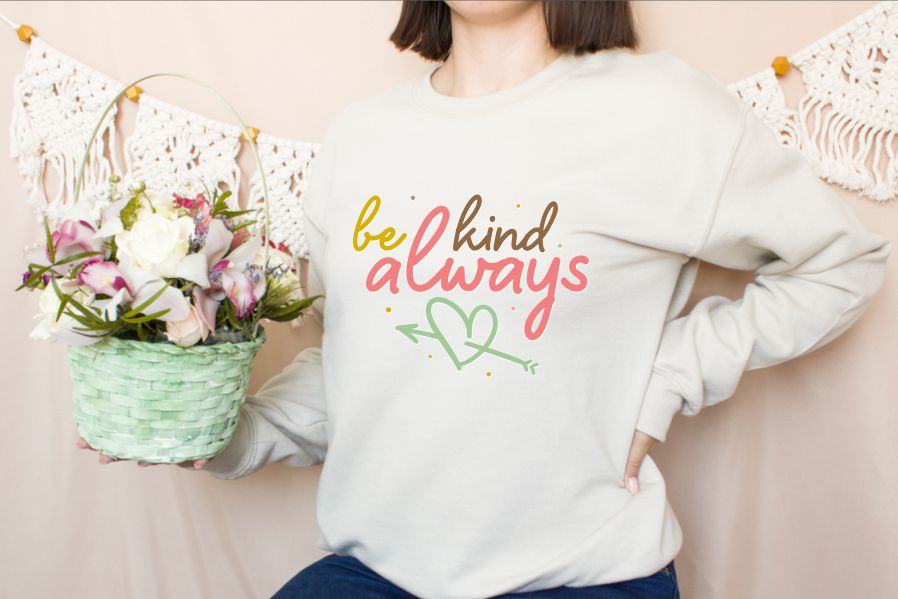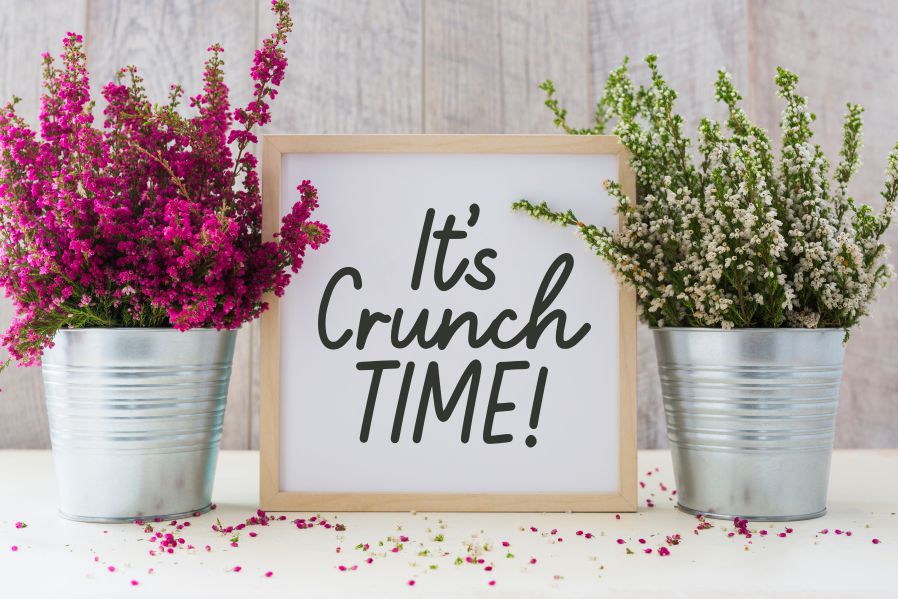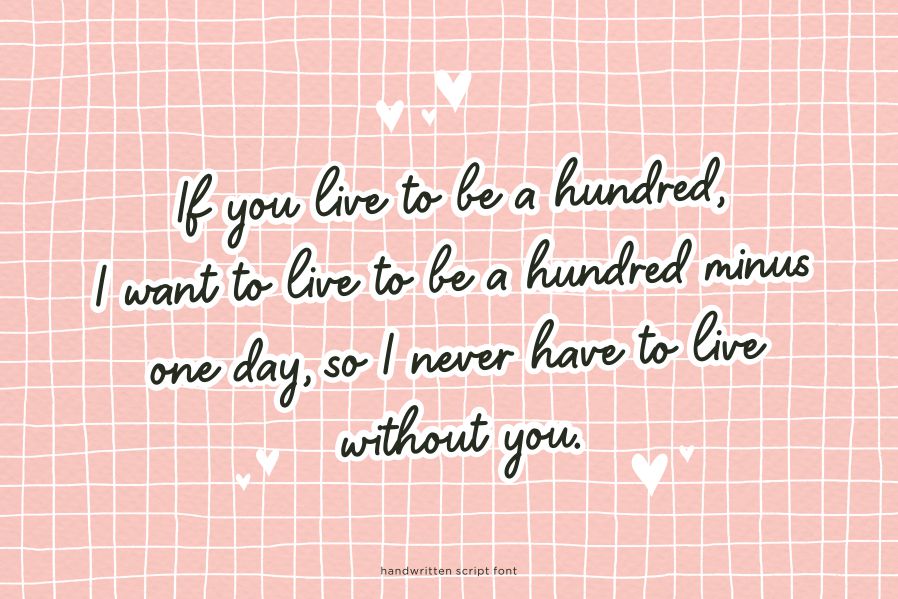
Lemonmint Font
Lemonmint Script Font
This is a cute handwriten script font. Lemonmint is perfect for product packaging, branding project, megazine, social media, wedding, or just used to express words above the background.